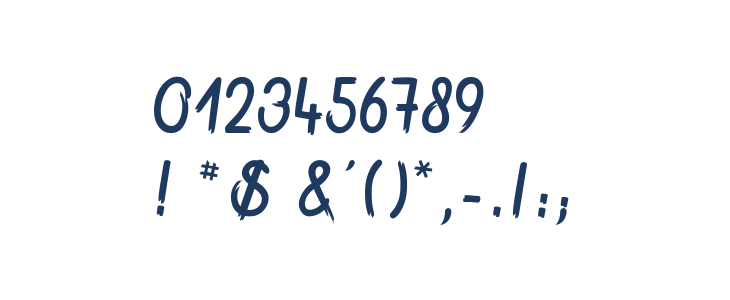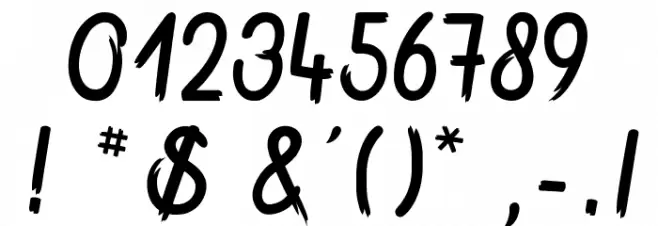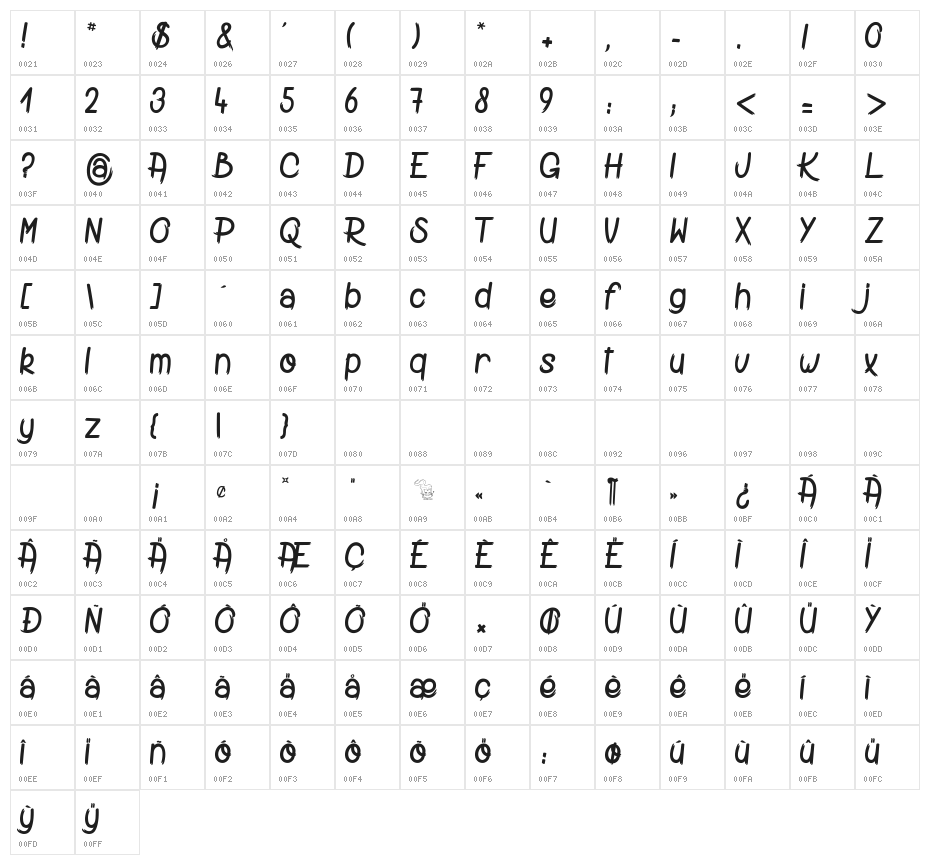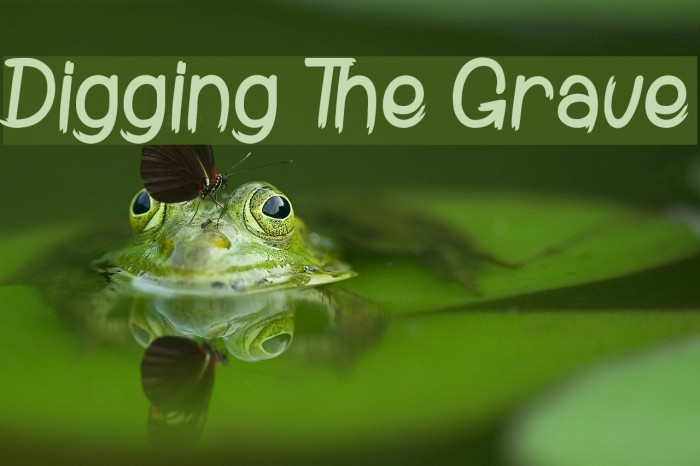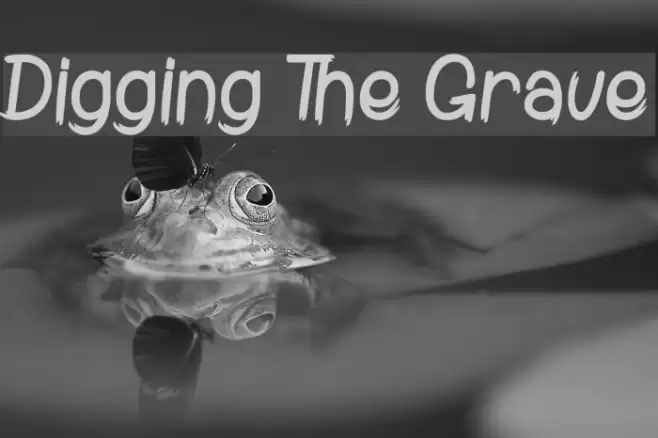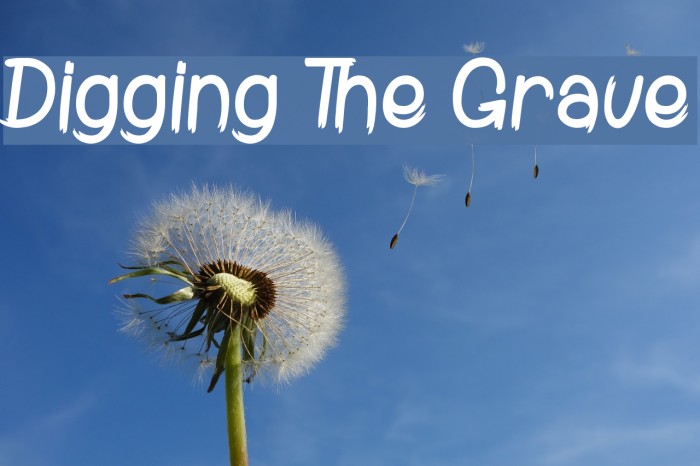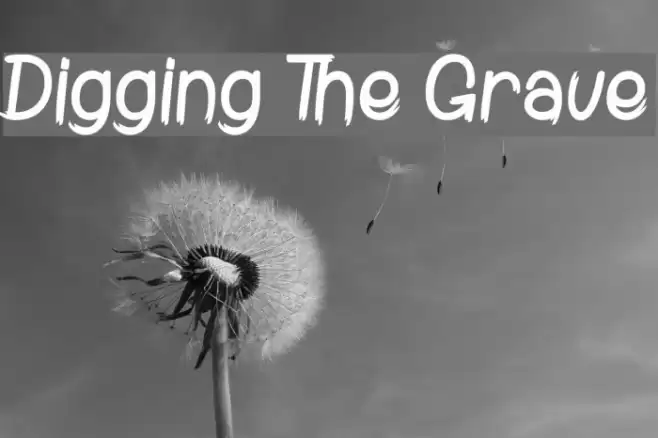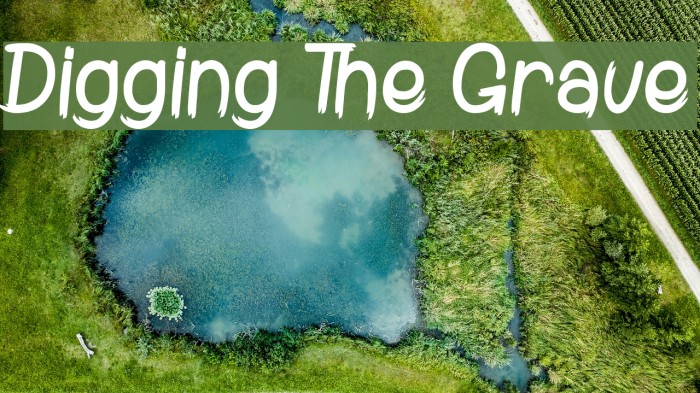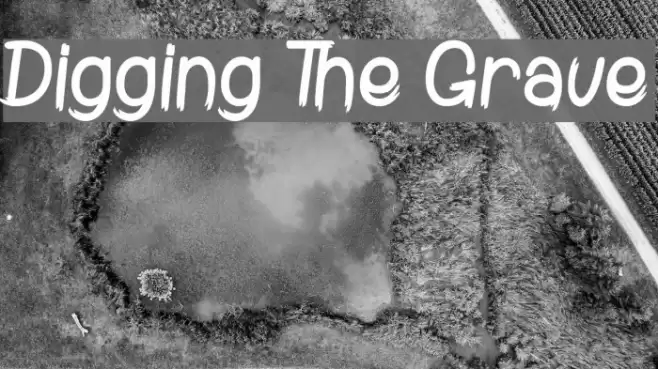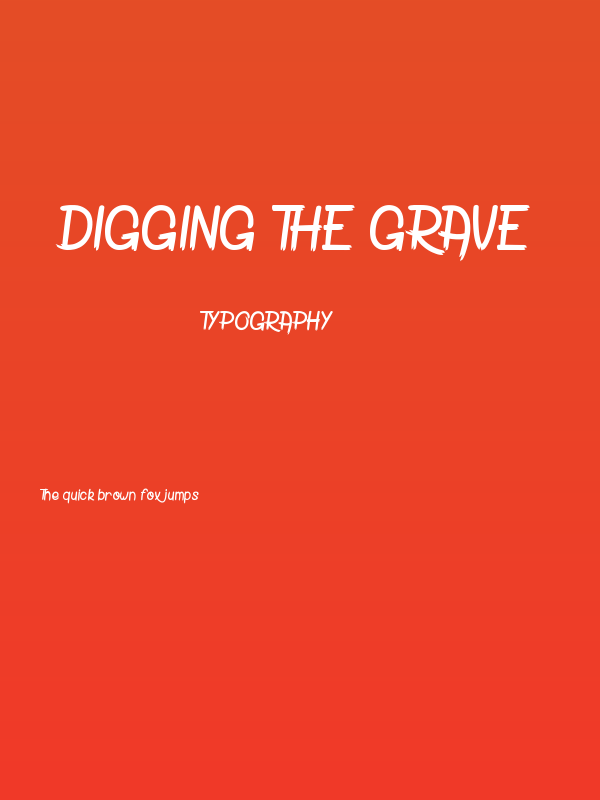
Digging The Grave Font
Digging The Grave Description
This font features a dynamic and edgy style, characterized by sharp, jagged edges and a slightly irregular baseline that gives it a hand-drawn appearance. The strokes are bold and expressive, with a brush-like texture that adds a sense of movement and energy. The uppercase and lowercase letters maintain a consistent style, with a playful yet slightly aggressive feel. Numbers and special characters are designed to match the overall aesthetic, making this font suitable for projects that require a bold and unconventional look.
| Overall Style | Modern, Edgy |
| Proposed Projects | Ideal for music album covers, event posters, skateboarding brands, or any project needing a rebellious and energetic vibe. |